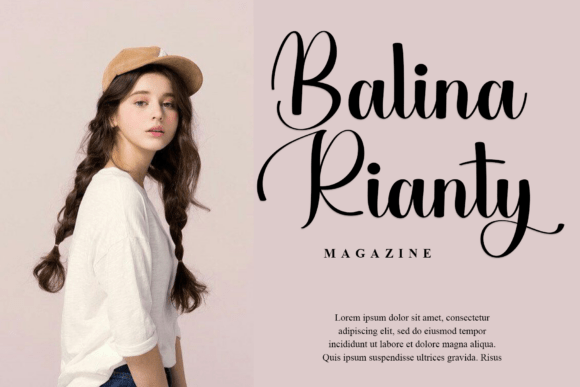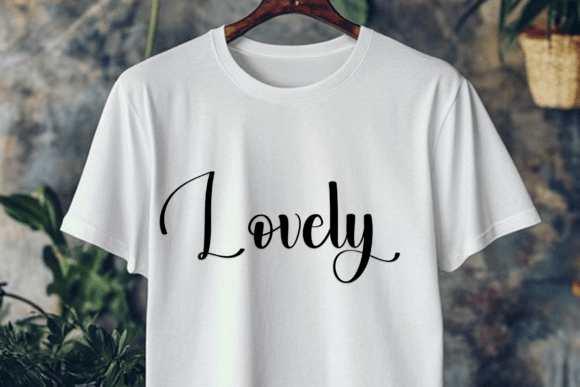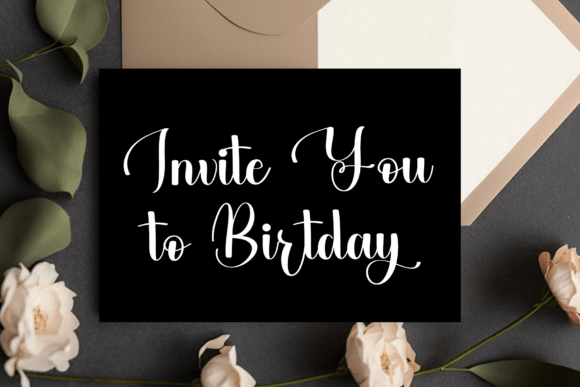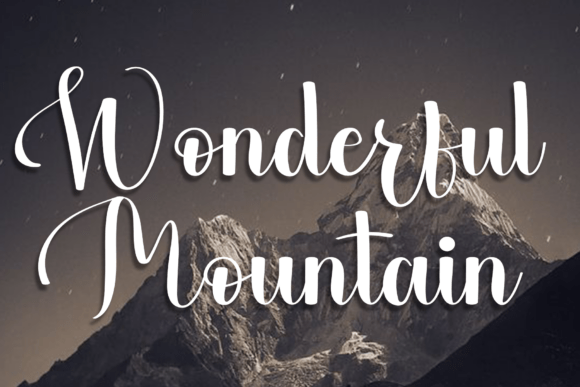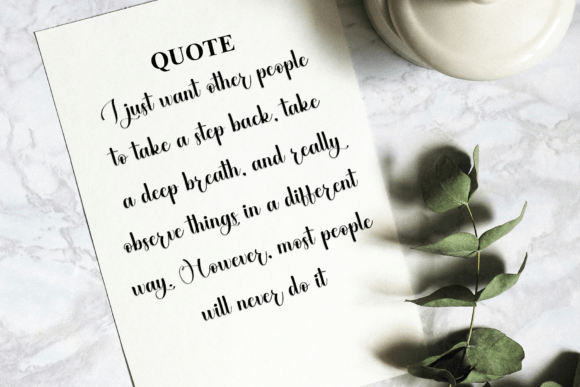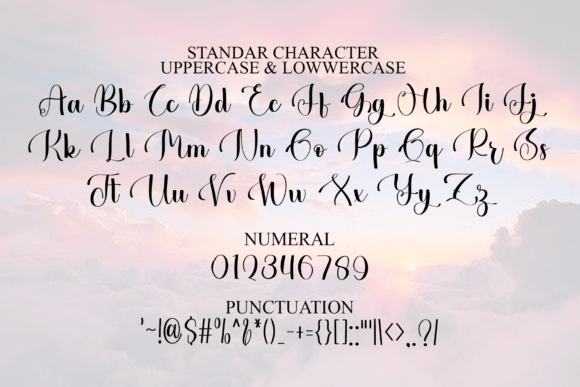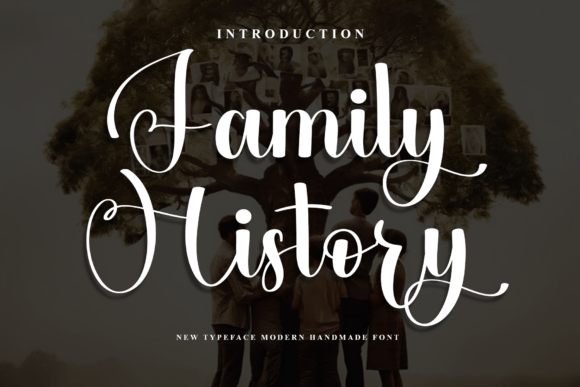
Discover the Charm of Family History Font: A Perfect Blend of Casualness and Creativity
Are you a designer, crafter, or DIY enthusiast looking for a font that can add a personal touch to your projects? Look no further than the Family History Font, a casual and creative typeface that exudes warmth and friendliness. This delightful font is perfect for anyone who wants to create unique and engaging designs that stand out from the crowd.
The Characteristics of Family History Font
Family History Font is a hand-drawn font that boasts round, playful strokes, creating a relaxed and approachable feel. Its charming aesthetic is reminiscent of handwritten notes and personal letters, making it an ideal choice for personal projects, invitations, and social media graphics. The font’s casual nature makes it perfect for designers who want to add a touch of warmth and personality to their work.
Perfect for Personal Projects
Whether you’re working on a personal project, such as a photo album or scrapbook, or creating a professional design for a client, Family History Font is an excellent choice. Its friendly and approachable feel makes it perfect for designs that require a personal touch, such as:
- Personal invitations, such as birthday, wedding, or baby shower invites
- Social media graphics, including Facebook posts, Instagram stories, and Twitter headers
- DIY projects, such as handmade cards, gift tags, or craft tutorials
- Personalized gifts, such as customized mugs, t-shirts, or tote bags
Why Designers Love Family History Font
Designers love Family History Font for its unique and creative aesthetic. The font’s hand-drawn nature gives it a distinctive look that sets it apart from more traditional fonts. Here are just a few reasons why designers adore this font:
- Unique and creative: Family History Font adds a fun and unique touch to any design, making it perfect for designers who want to stand out from the crowd.
- Versatile: This font can be used for a wide range of design projects, from personal invitations to professional branding materials.
- Easy to read: Despite its playful nature, Family History Font is easy to read, making it perfect for designs that require a clear and concise message.
Tips for Using Family History Font
To get the most out of Family History Font, here are a few tips to keep in mind:
- Use it for headings and titles: Family History Font is perfect for headings and titles, where its playful nature can really shine.
- Pair it with other fonts: Experiment with pairing Family History Font with other fonts to create a unique and interesting contrast.
- Experiment with colors: Don’t be afraid to try out different colors and textures with Family History Font to add depth and interest to your design.
Family History Font is a delightful and creative font that’s perfect for designers, crafters, and DIY enthusiasts who want to add a personal touch to their projects. Its charming, hand-drawn aesthetic and playful strokes create a relaxed and approachable feel that’s sure to engage and inspire your audience. Whether you’re working on a personal project or a professional design, Family History Font is an excellent choice for anyone who wants to create unique and memorable designs.
So why not give Family History Font a try? With its versatility, creativity, and charm, it’s sure to become a favorite in your design toolkit.